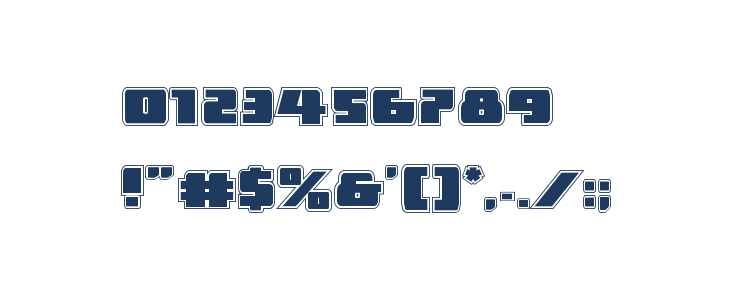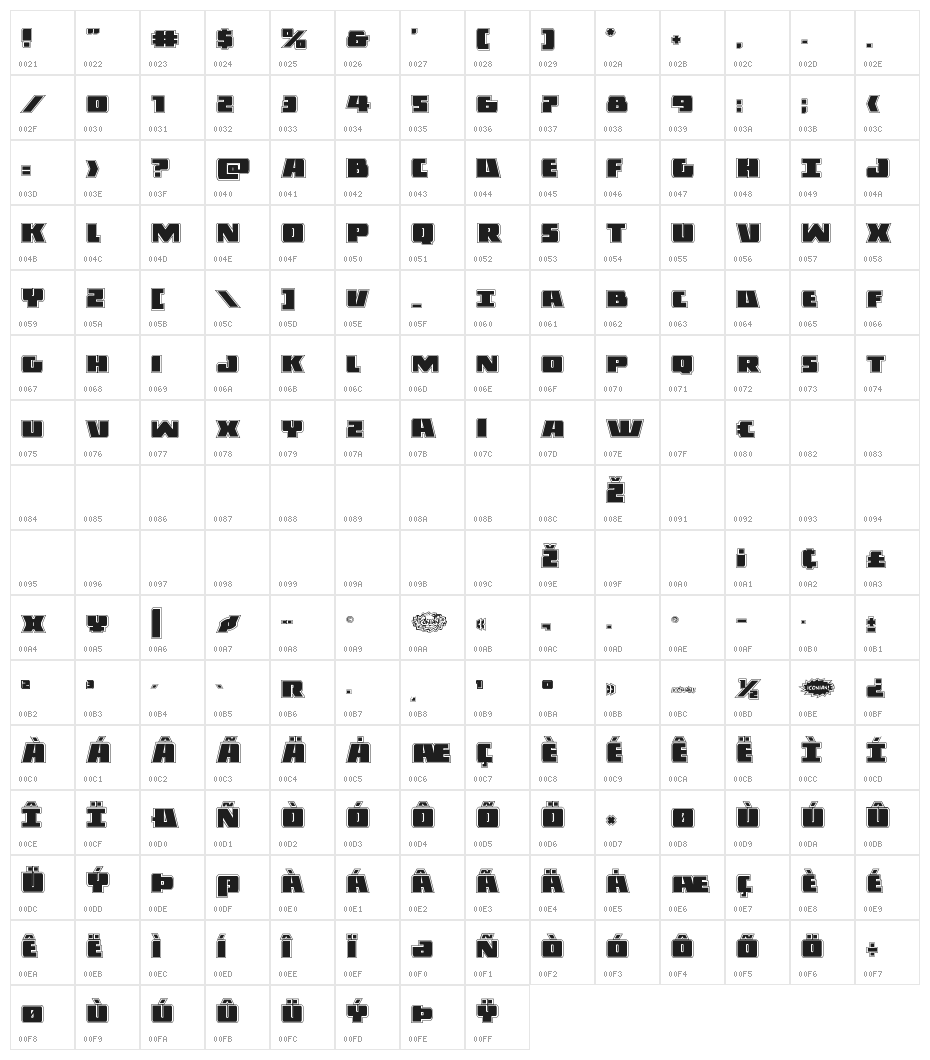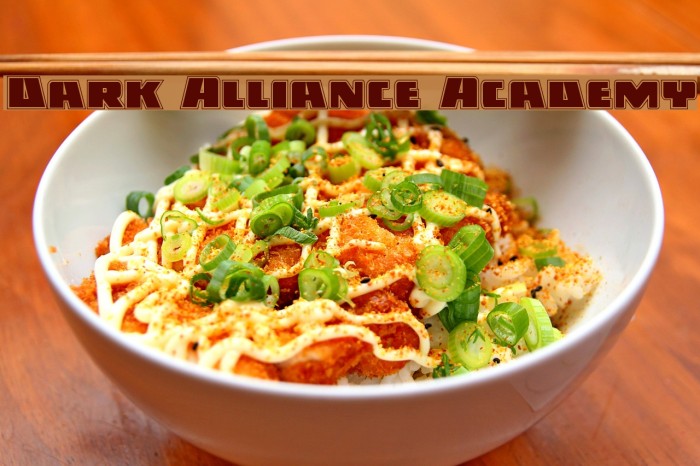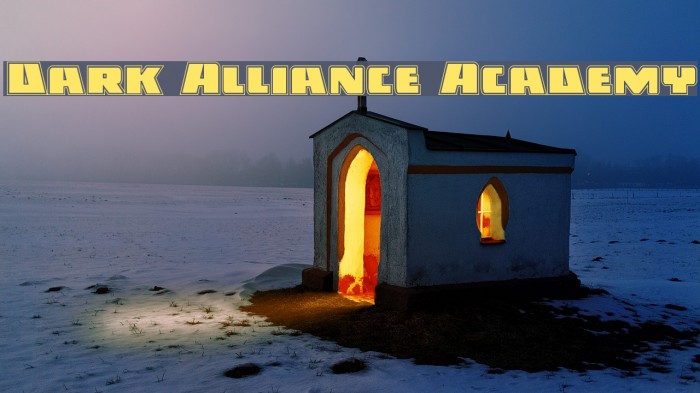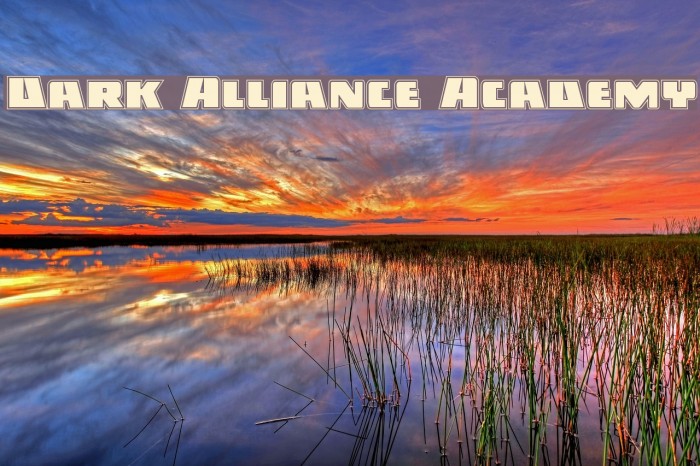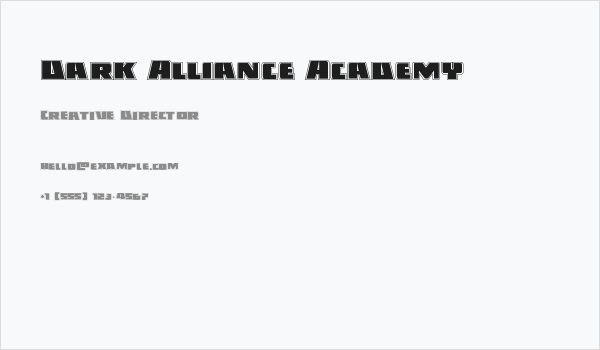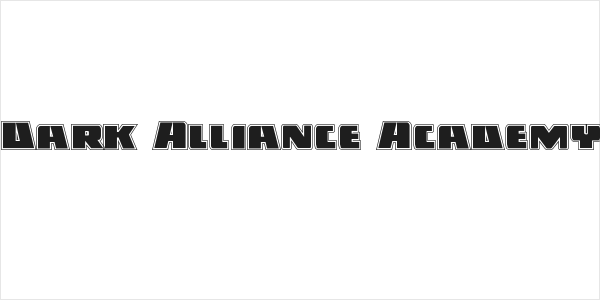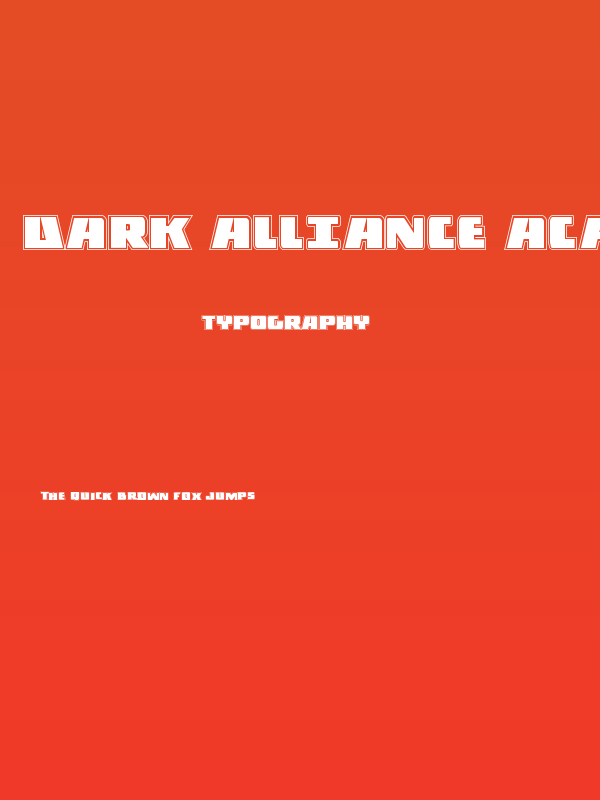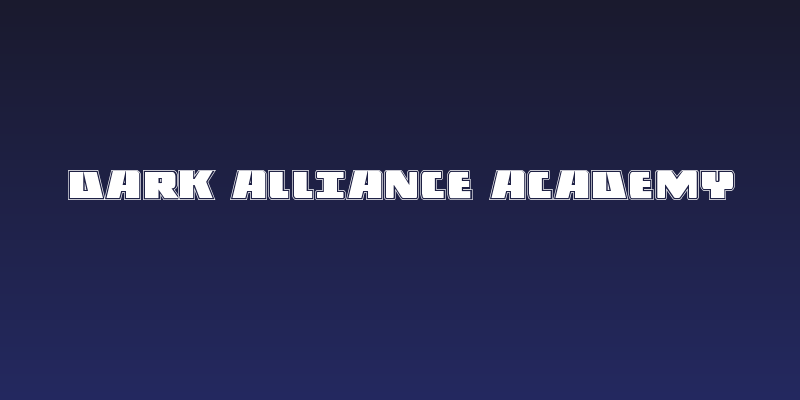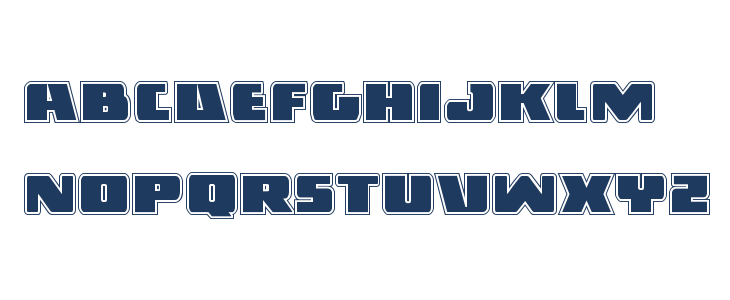
Dark Alliance Academy Font
Dark Alliance Academy Description
This font features a bold, geometric design with a strong presence. Each character is outlined, creating a striking contrast between the filled and unfilled spaces. The angular shapes and sharp edges give it a futuristic and dynamic appearance, making it ideal for attention-grabbing designs. The uppercase and lowercase letters maintain a consistent style, while the numbers and special characters complement the overall aesthetic. The font's boldness and unique style make it suitable for projects that require a modern and impactful look.
| Overall Style | Modern, Futuristic |
| Proposed Projects | Ideal for sci-fi themed posters, video game titles, branding for tech companies, and modern logo designs. |